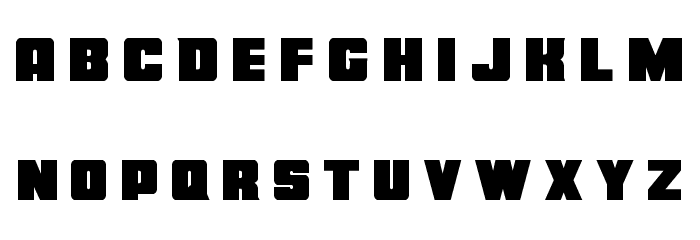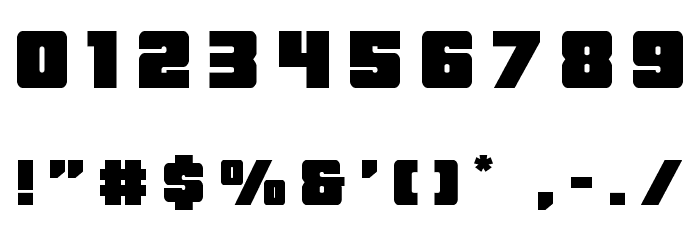
Force Runner Title Font
This bold and impactful font features a strong, geometric design with thick, blocky letters that convey a sense of power and stability. The uppercase letters are uniform in height and width, creating a cohesive and structured appearance. The numbers and special characters maintain the same boldness, ensuring consistency across all text elements. The font's design is reminiscent of industrial or military styles, making it ideal for projects that require a commanding presence. Its simplicity and clarity make it highly legible, even at smaller sizes.
A bold, geometric font with a strong, industrial feel.
- Font: Force Runner Title
- Proposed Projects: Ideal for use in posters, headlines, branding, and any project requiring a bold, impactful typeface.